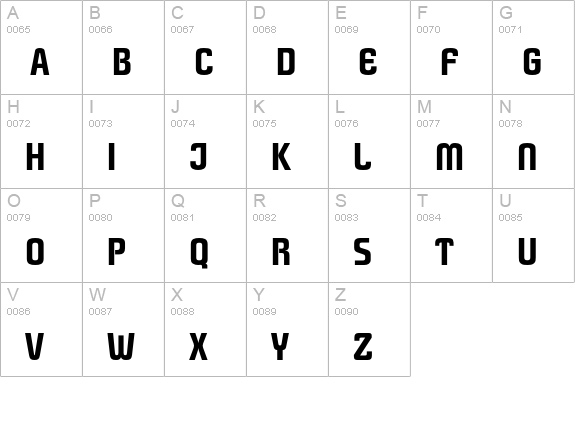
PasadenaEF-DemiBold is a sub-bold, structured variant in the PasadenaEF typeface family \xE2\x80\x94 well suited to sub-headlines and emphasised passages.
PasadenaEF-DemiBold font is a stunning and versatile typeface that exudes confidence and elegance. Its bold and assertive letterforms make it perfect for headlines, titles, and impactful statements. The font's clean and sharp lines give it a modern and sophisticated look, making it suitable for a wide range of design projects. What sets PasadenaEF-DemiBold font apart is that it is not only visually appealing but also freely available to download at FontsMarket.com. This means that designers and creatives can access this remarkable font without any cost or restrictions. Whether you are a professional designer or a hobbyist looking to add a touch of class to your work, PasadenaEF-DemiBold font is a valuable asset that won't break the bank. With its generous x-height and well-balanced proportions, PasadenaEF-DemiBold font ensures excellent legibility even at smaller sizes. This makes it equally suitable for body text, captions, and subheadings. Its sturdy and bold characteristics give your designs a sense of authority and make a lasting impression on your audience. The versatility of PasadenaEF-DemiBold font extends to various design applications, including print materials such as brochures, flyers, and posters, as well as digital mediums like websites, social media graphics, and presentations. Its timeless appeal makes it adaptable to both contemporary and classic design styles, making it a perfect choice for any project. Discover the power of PasadenaEF-DemiBold font and elevate your designs to new heights. With its free availability at FontsMarket.com, you have the opportunity to unleash your creativity without any financial constraints. Download this exceptional font today and make a bold statement in your design projects.